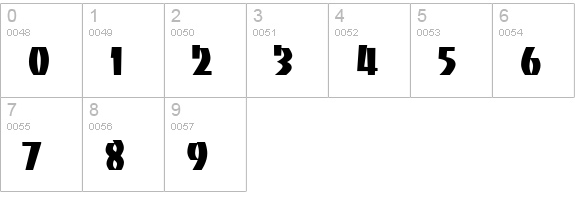
BaccaratUpright Regular Font Details
BaccaratUpright Regular is the standard, neutral variant in the BaccaratUpright typeface family \xE2\x80\x94 well suited to general body text, paragraphs, and standard typographic work.
BaccaratUpright Regular font is a sleek and sophisticated typeface that exudes elegance and style. Its clean lines and classic letterforms make it the perfect choice for a wide range of design projects, from logos to wedding invitations. This font is truly versatile, with its timeless appeal and effortless legibility. Its well-balanced proportions and smooth curves create a harmonious visual experience, ensuring that your message is delivered with clarity and impact. BaccaratUpright Regular font is available in a range of weights, allowing you to customize your designs and achieve the desired effect. Whether you're looking for a bold statement or a subtle touch of refinement, this font has got you covered. One of the best things about BaccaratUpright Regular font is that it is freely available to download at FontsMarket.com. You can easily access this font and start using it in your projects without any hassle. With its high-quality design and accessibility, BaccaratUpright Regular font is a valuable addition to any designer's toolkit. So why wait? Enhance your designs with the timeless beauty of BaccaratUpright Regular font. Download it for free at FontsMarket.com and experience the difference it can make in your creative endeavors.